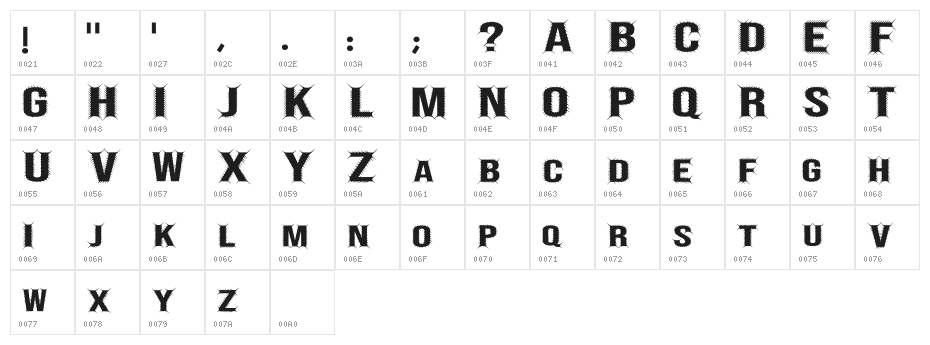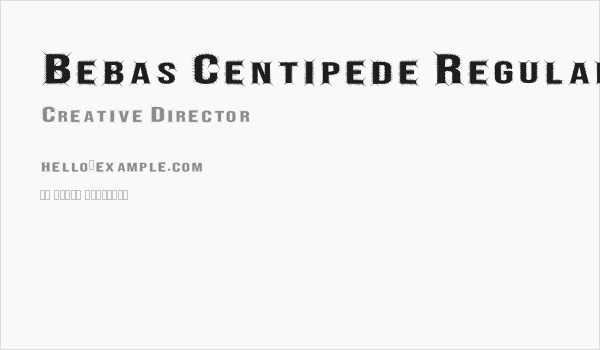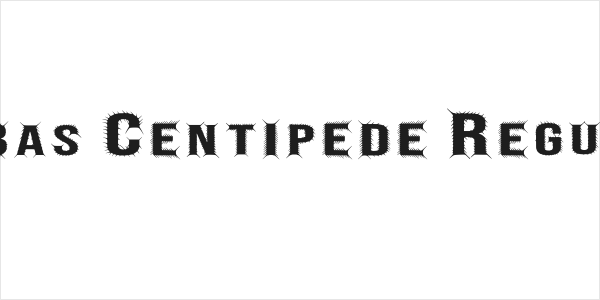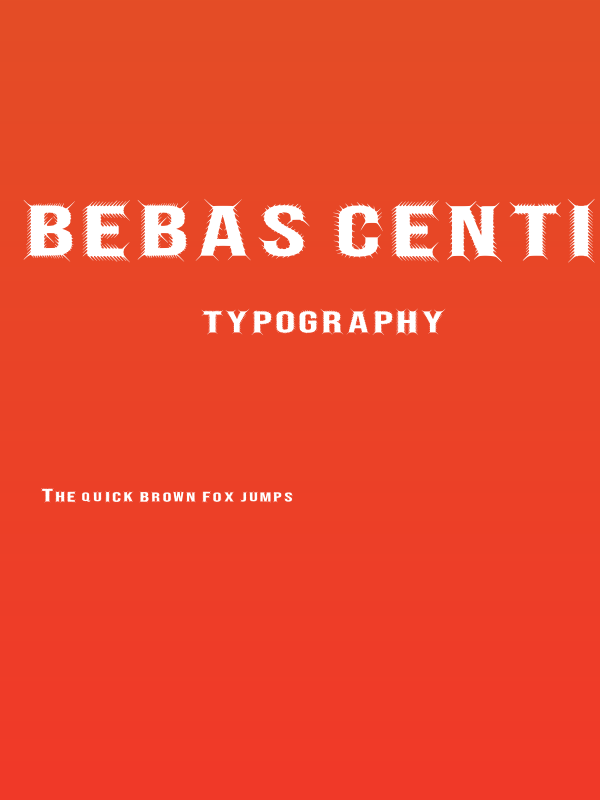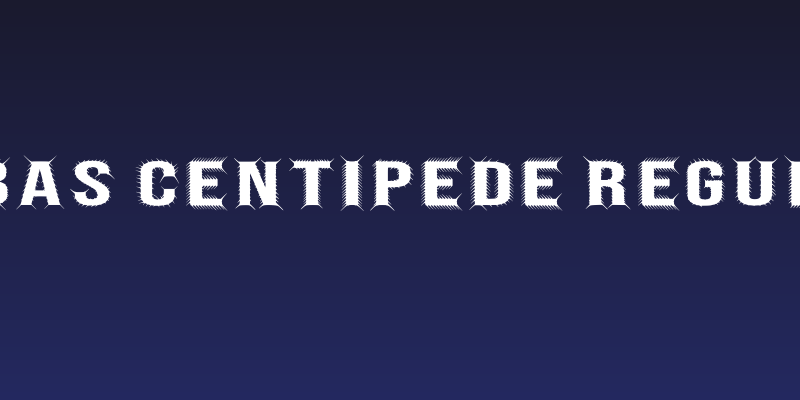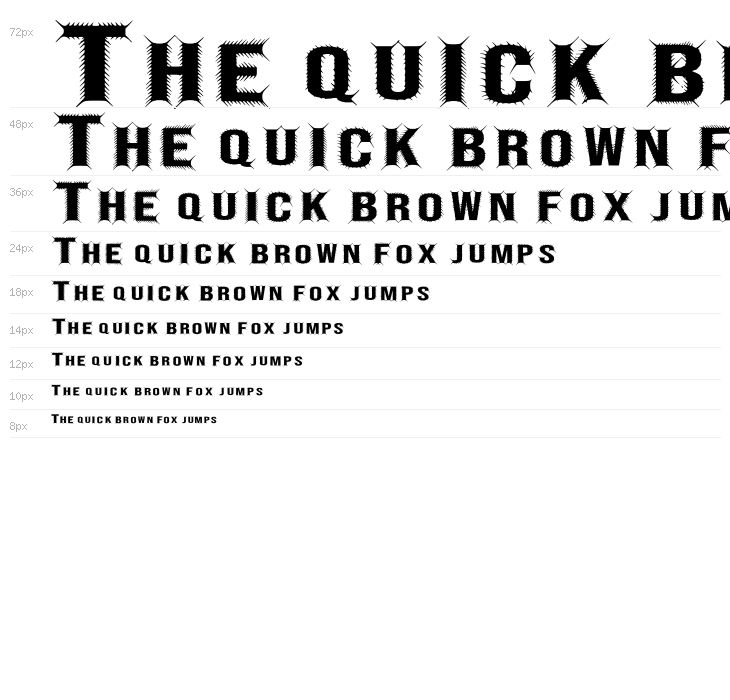
Bebas Centipede Regular Font
Bebas Centipede Regular Description
This font features a bold and striking design with sharp, spiky edges that give it a unique and edgy appearance. The characters are uniformly bold, with a consistent thickness throughout, creating a strong visual impact. The design incorporates a modern twist with its jagged outlines, making it stand out in any setting. The uppercase letters are particularly prominent, with a sense of movement and energy conveyed through the spiky embellishments. This font is ideal for projects that require a bold statement and a touch of creativity.
| Overall Style | Modern, Edgy |
| Proposed Projects | Ideal for posters, album covers, branding, and any project needing a bold, creative statement. |